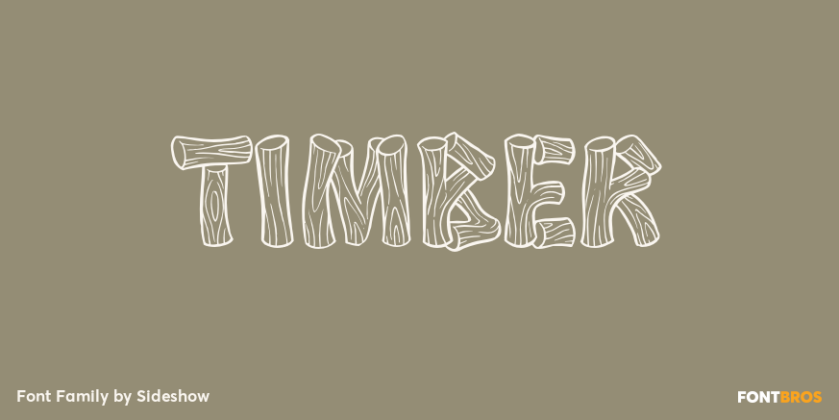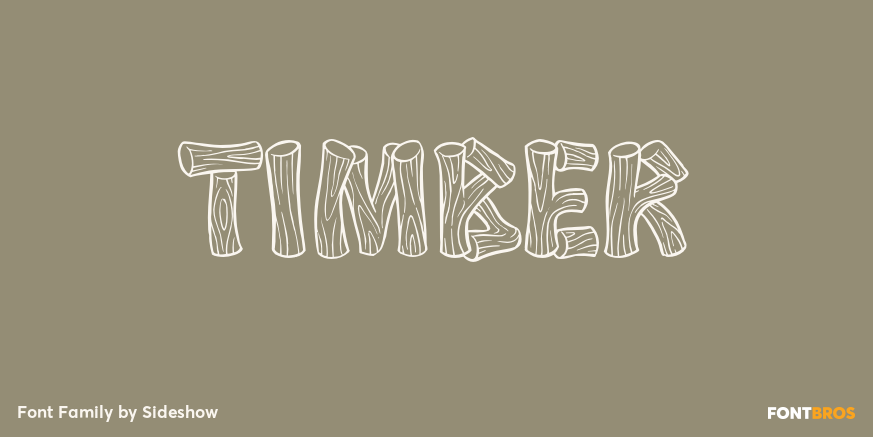
About Timber
Timber is a sturdy font built by northwoods loggers (Or perhaps by beavers – we\’re not quite sure) No plywood or simulated woodgrain veneer here, folks! Just genuine hardwood logs ready to construct your next rugged typographic project!